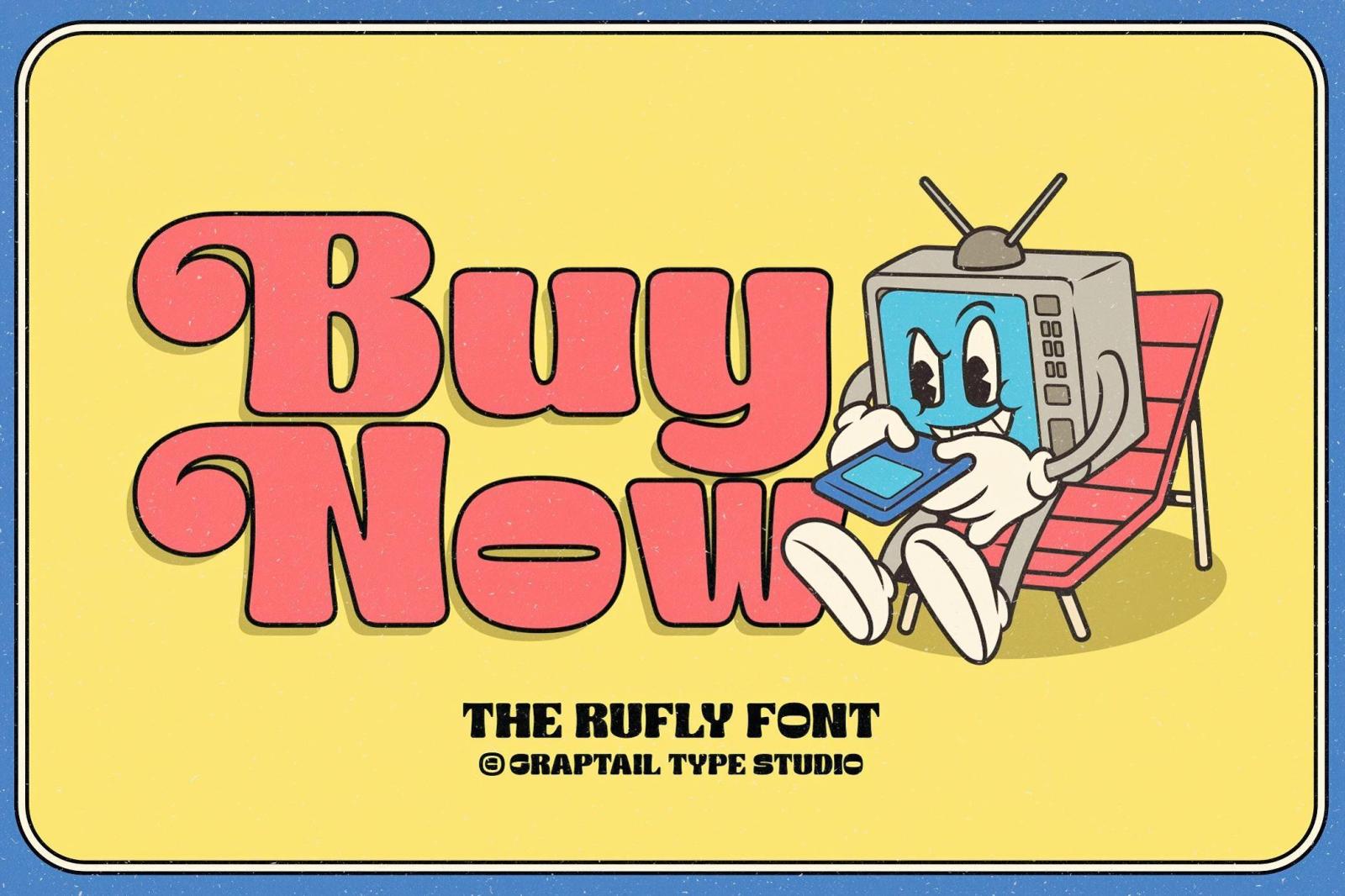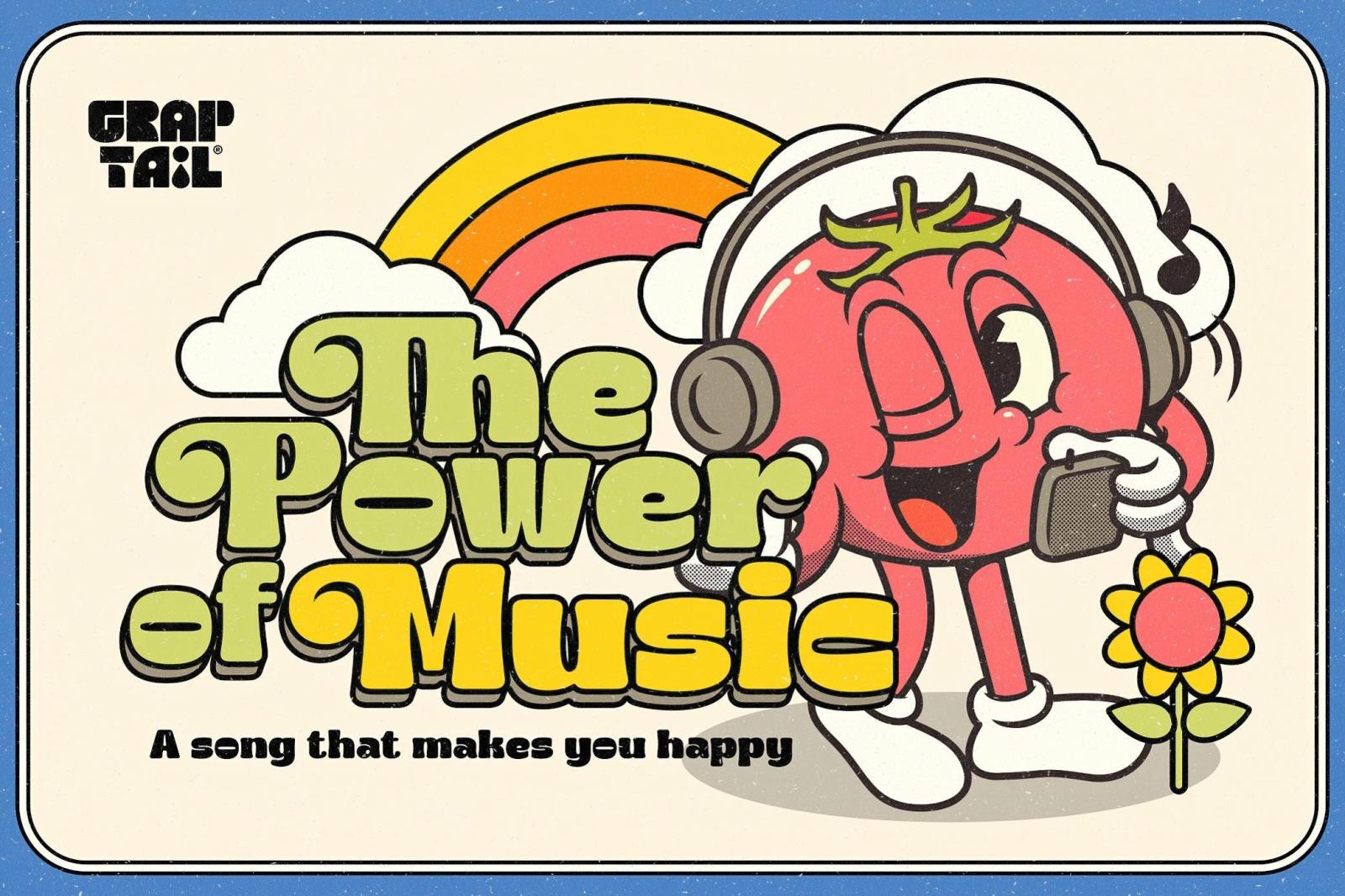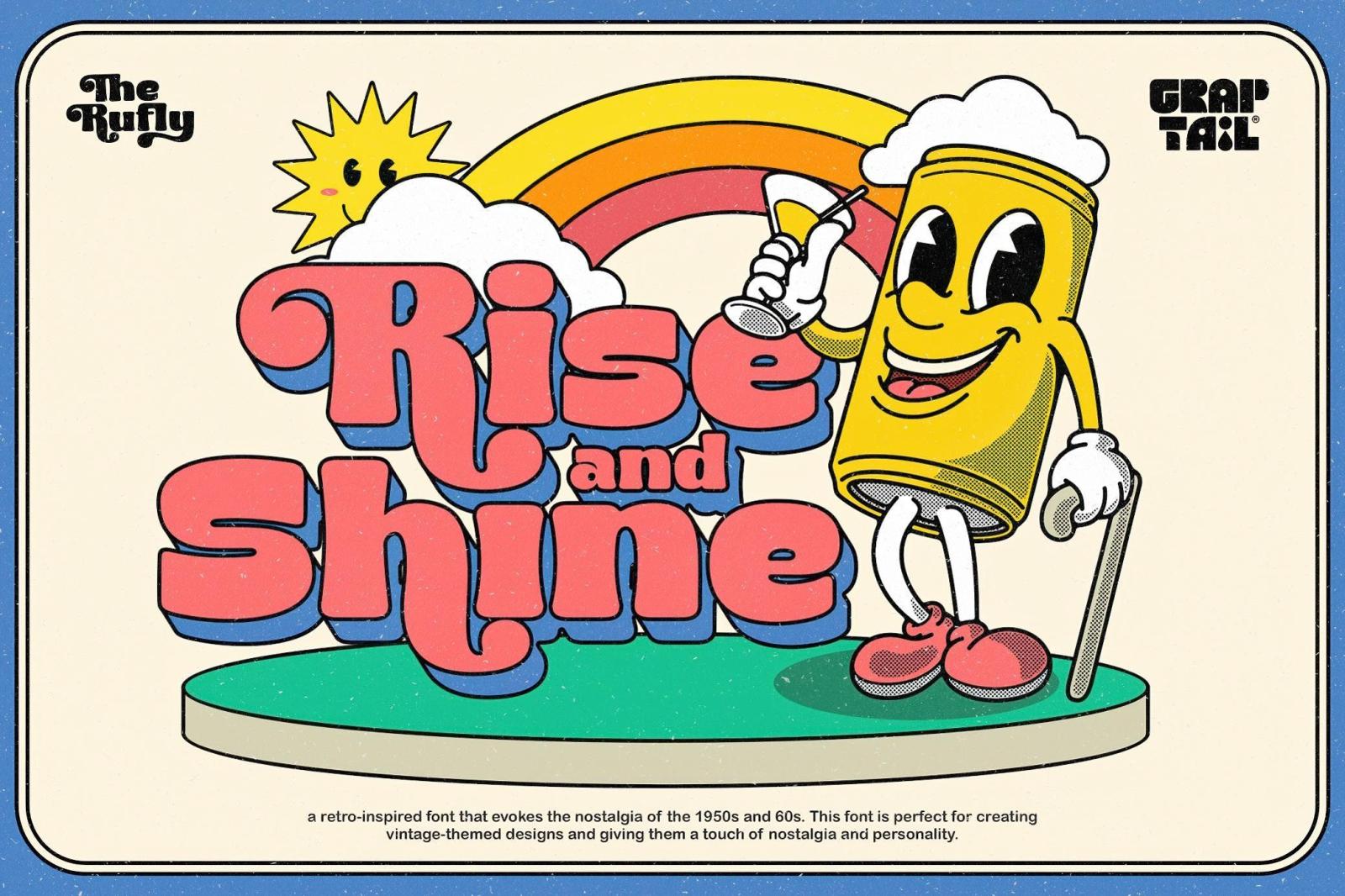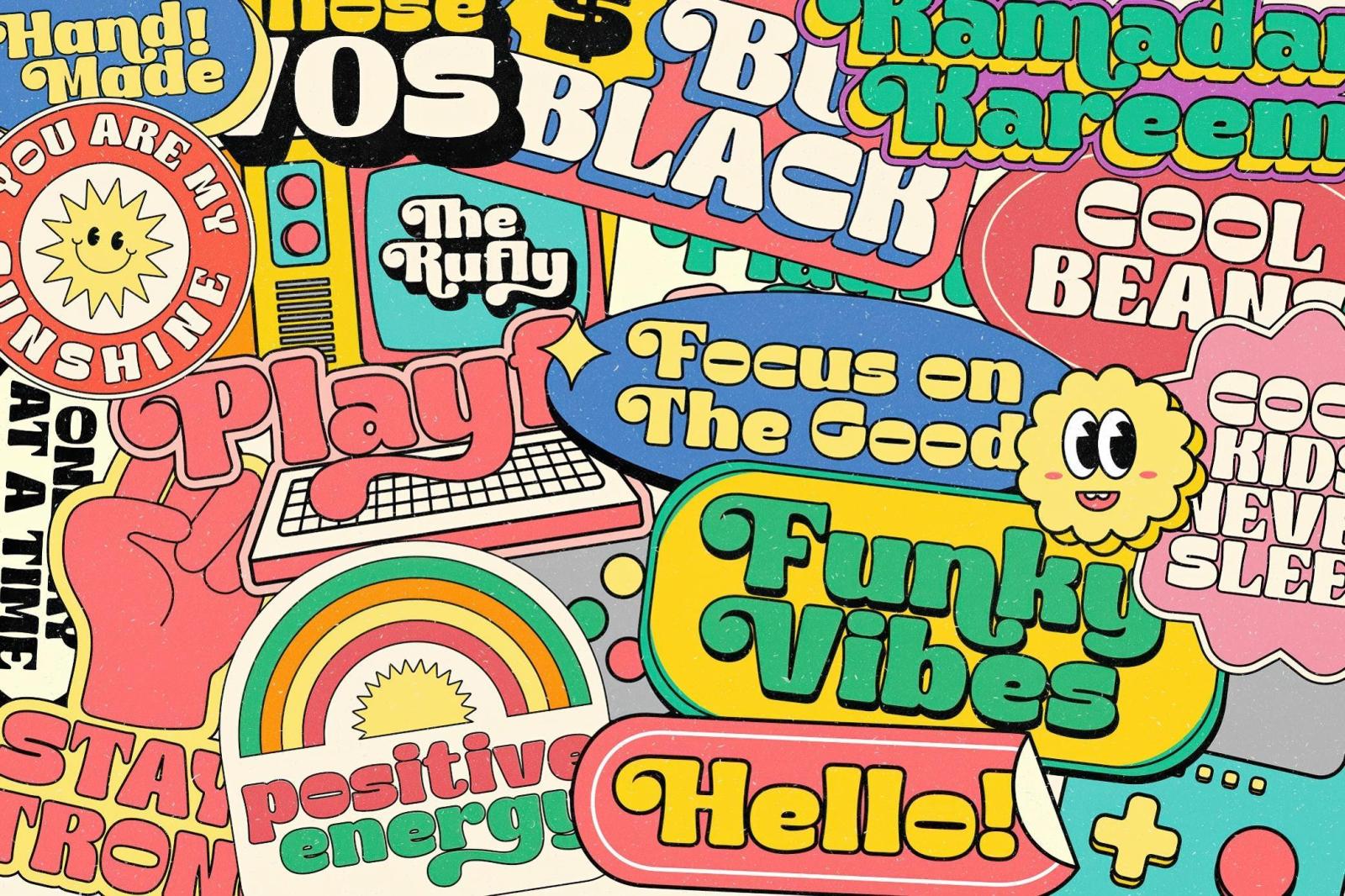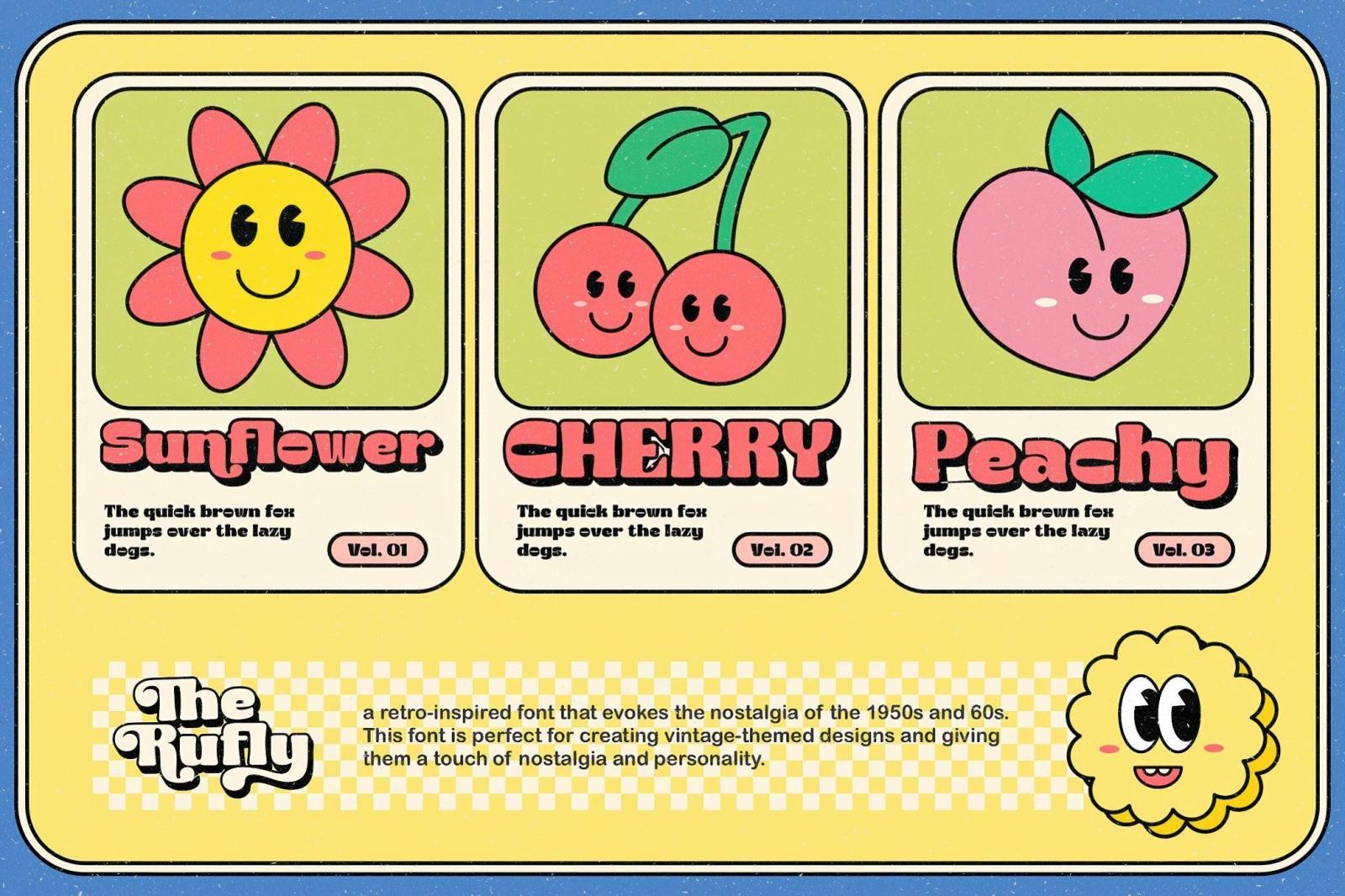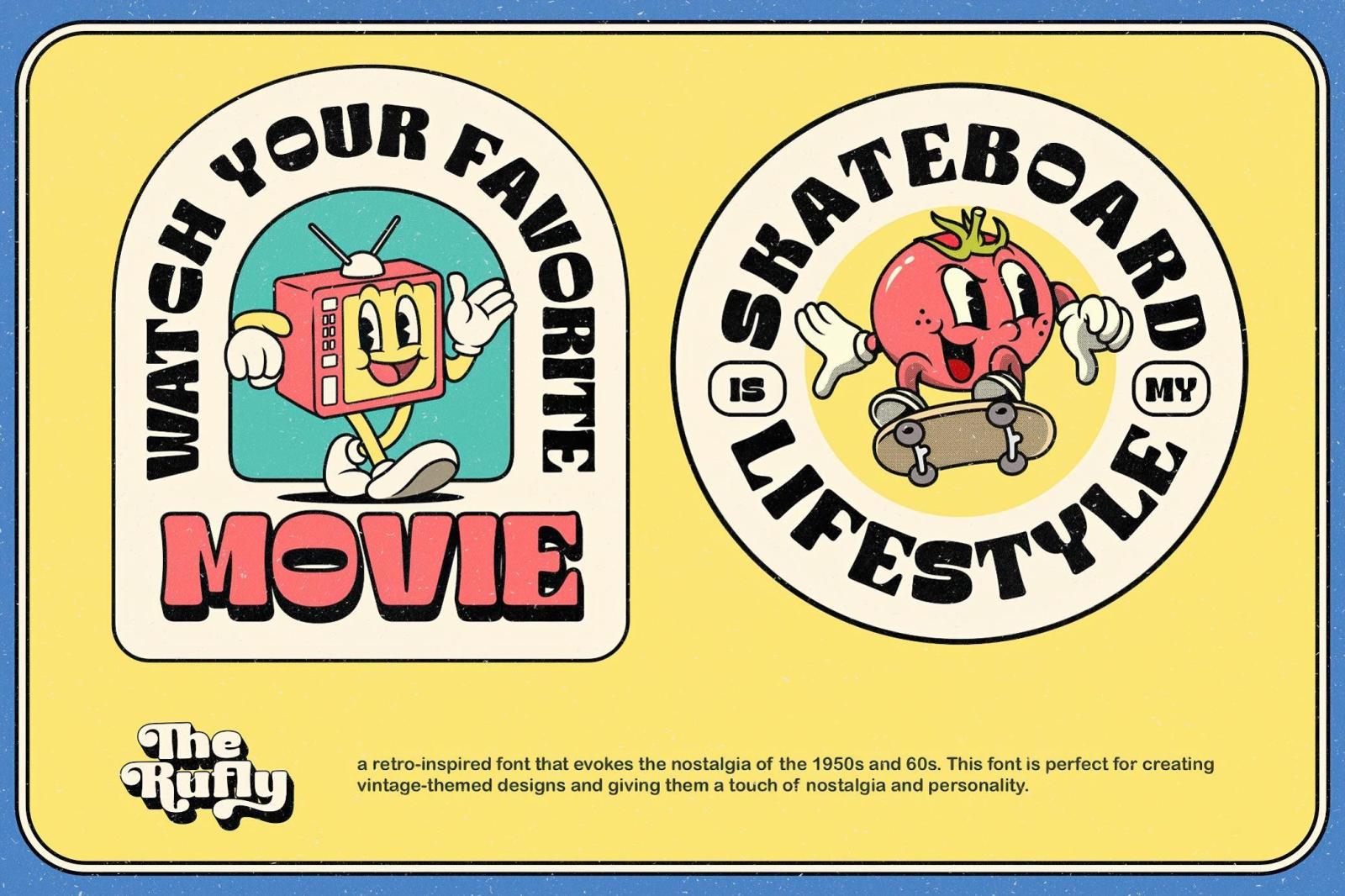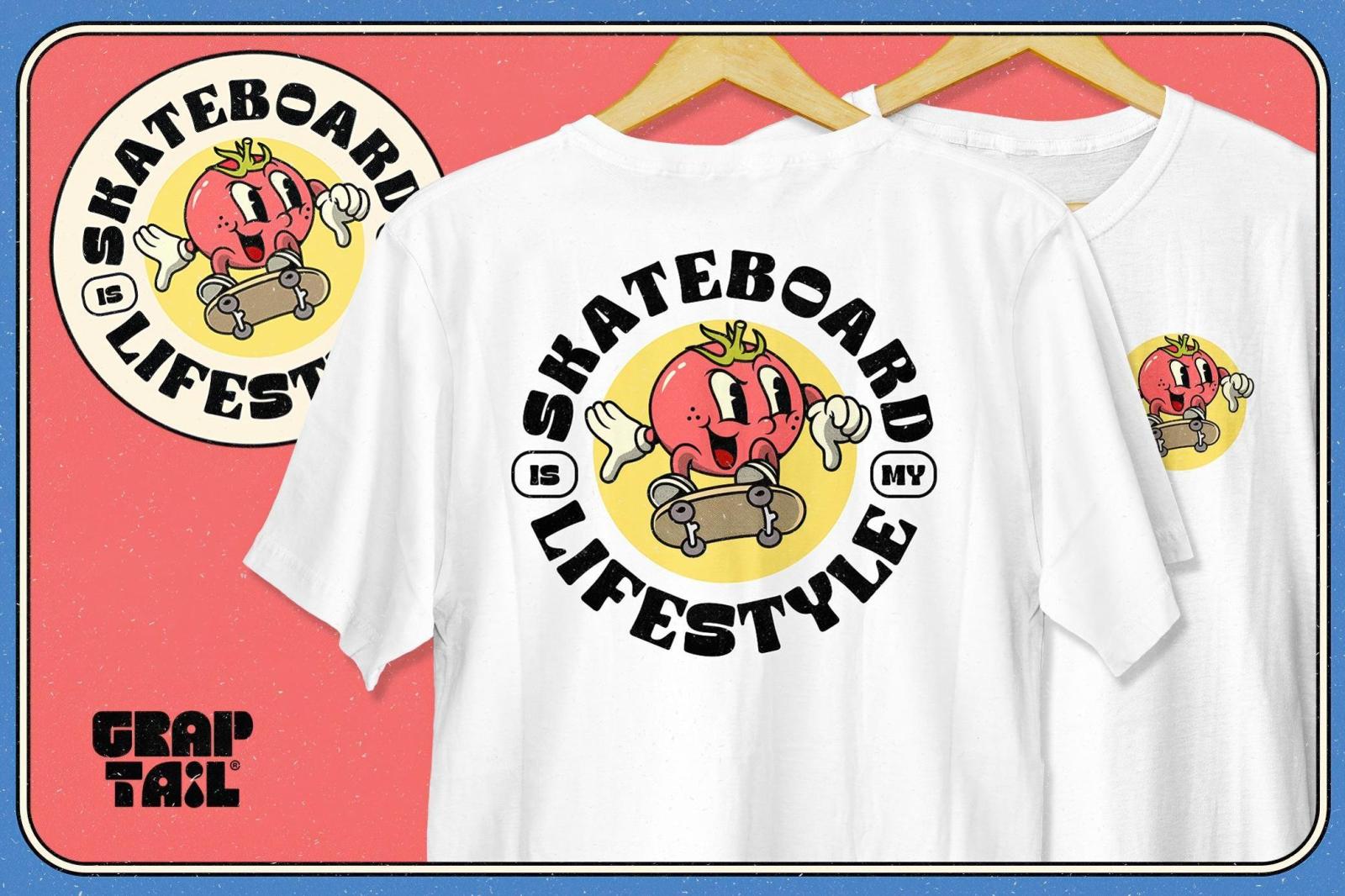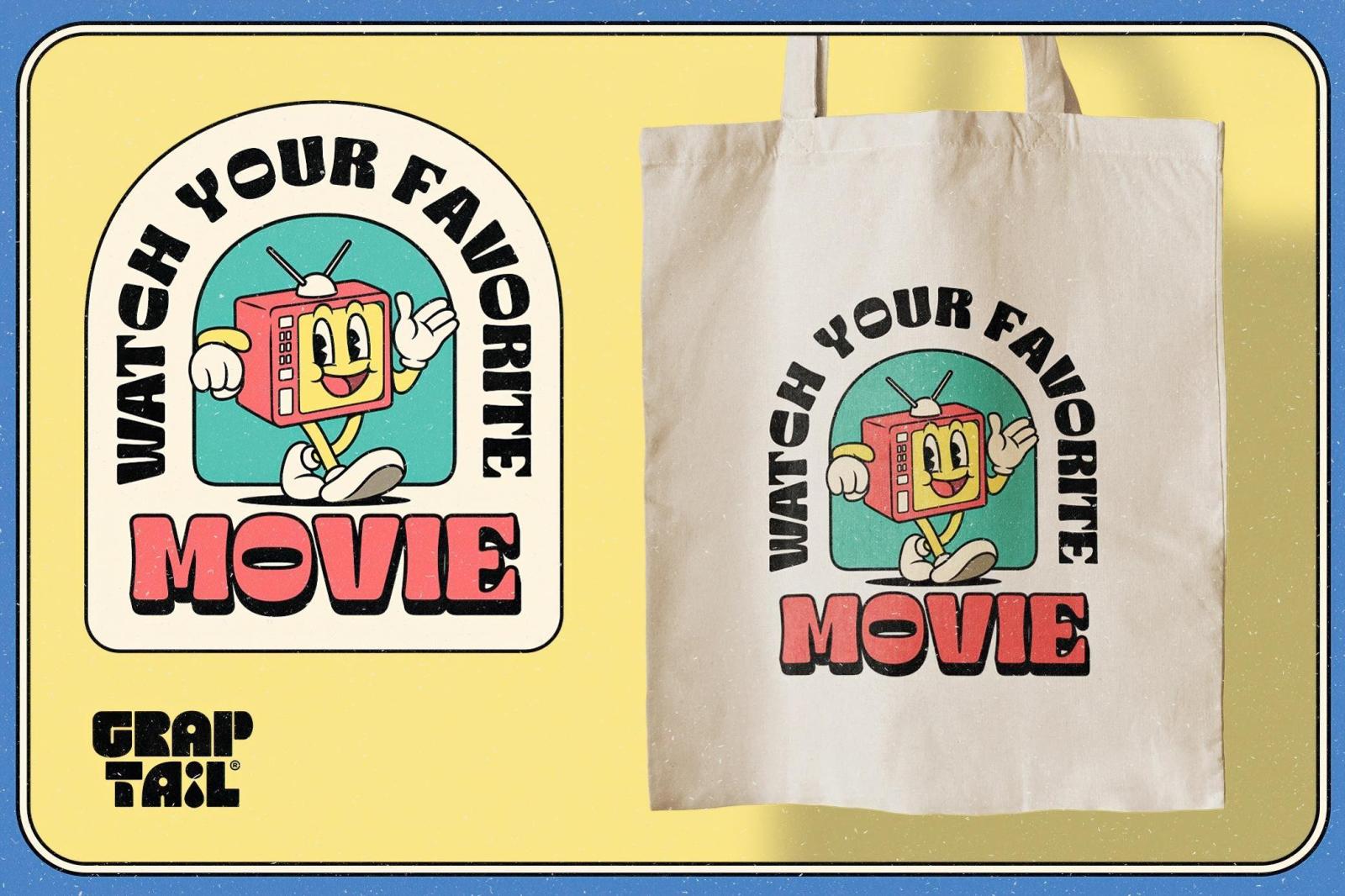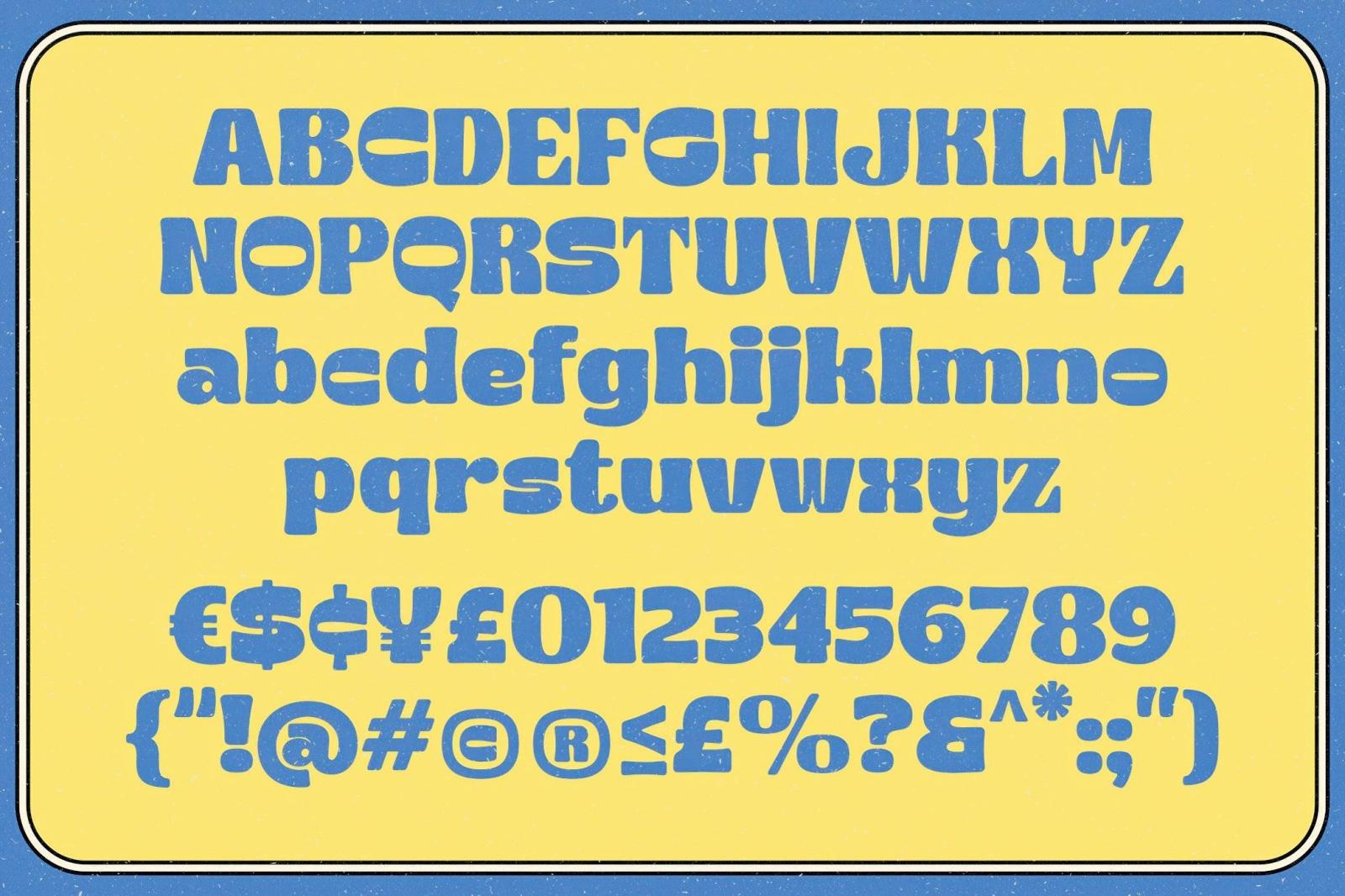
The Rufly — Retro Font
The Rufly is a canonical retro groovy font, drawing heavily from 1970s design aesthetics. It features bold, rounded letters with playful swashes and a slight bubble-like quality. There's a complete character set with a variety of alternates and ligatures. Projects with a vintage vibe — such as posters, signboards, sticker packs, trendy apparel, event promos, music album covers, or pins — are the perfect match for The Rufly. It also pairs beautifully with rubber hose characters, a branding design trend that’s been going strong for the third year in a row, especially for café and delivery identities.